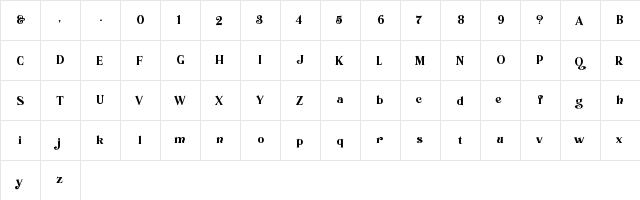
Foldnick Regular Font Preview
Foldnick Regular
Foldnick Regular Font Details
| Foundry | Kulokale |
| Designer | M Arif Dwi Prasetyo & Eko Nurcahyo |
Design Context for Foldnick Typeface
Foldnick takes a measured approach to typography — its balanced proportions and neutral character make it a reliable workhorse for both digital and print work.